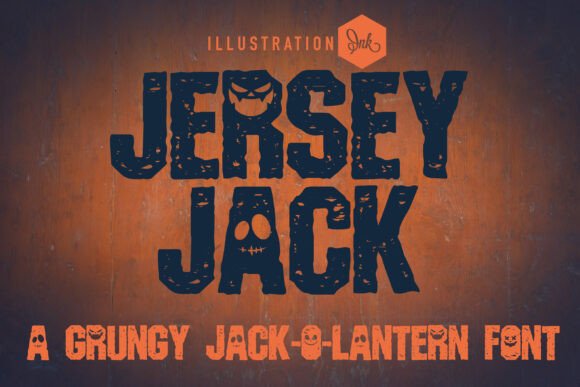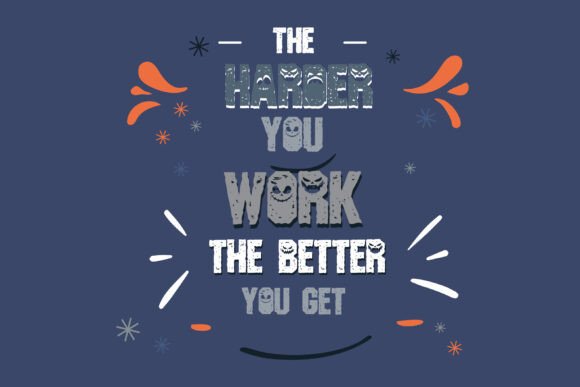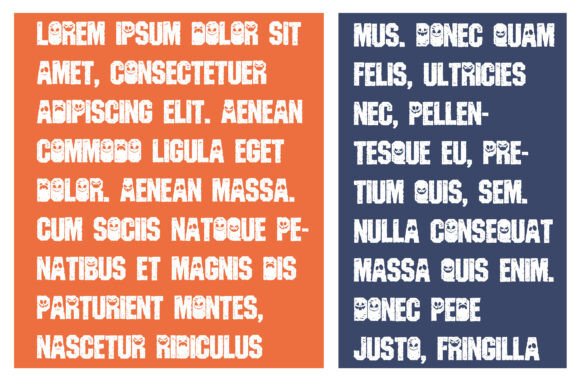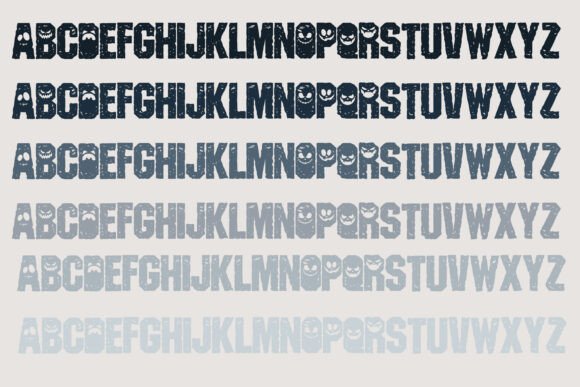
Jersey Jack Font
About the Jersey Jack Font
Unleash your creativity with Jersey Jack Font, a versatile font perfect for a wide range of applications. This hand-crafted sans serif sports jack-o-lantern faces and lots of grunge throughout.
Jersey Jack is ideally suited for headlines, posters, and short-form branding applications where its bold, playful personality can shine. The grunge texture and unique character add visual interest, but its limited x-height makes it unsuitable for extended body text or UI elements. Legibility suffers in smaller sizes or within long paragraphs.
Pairing Jersey Jack with a clean, geometric sans-serif like Futura or a more neutral serif like Garamond creates a pleasing contrast. The geometric sans-serif provides a modern counterpoint to the handcrafted feel, while a serif offers a touch of sophistication. For a more playful outcome, a simple script font could complement its informal nature.
The font’s overall personality is energetic and slightly rebellious, making it perfect for brands targeting a youthful or edgy demographic. Think streetwear apparel, music festivals, or craft breweries seeking a distinctive visual identity.